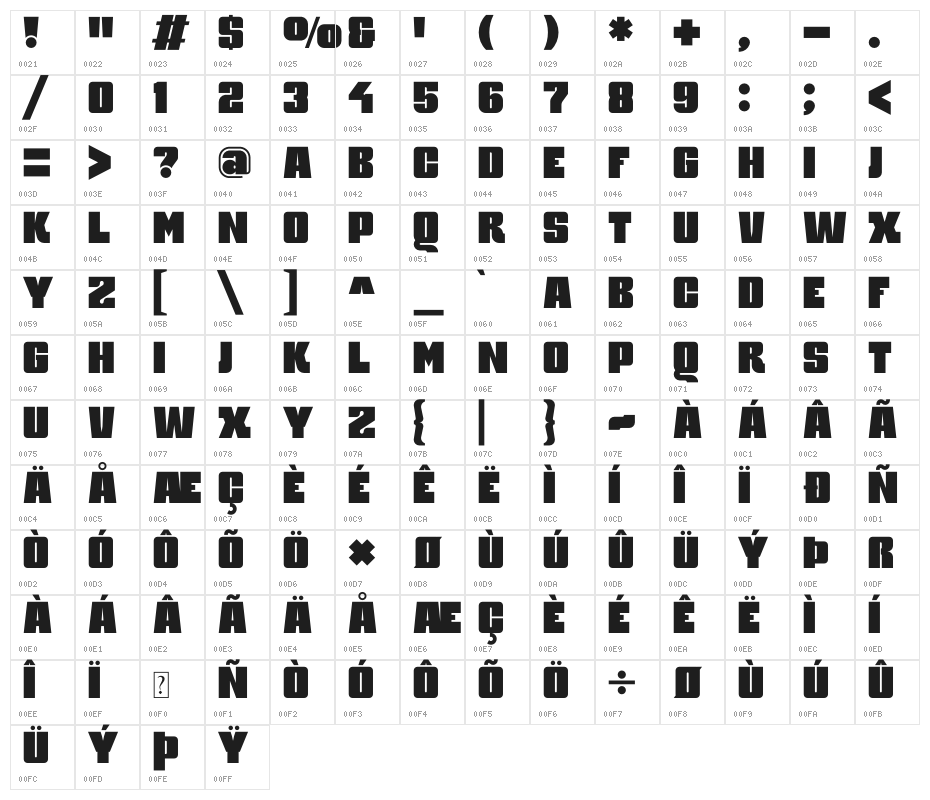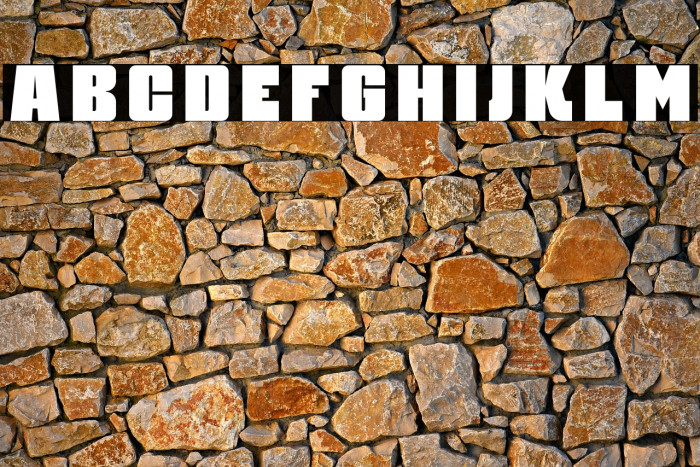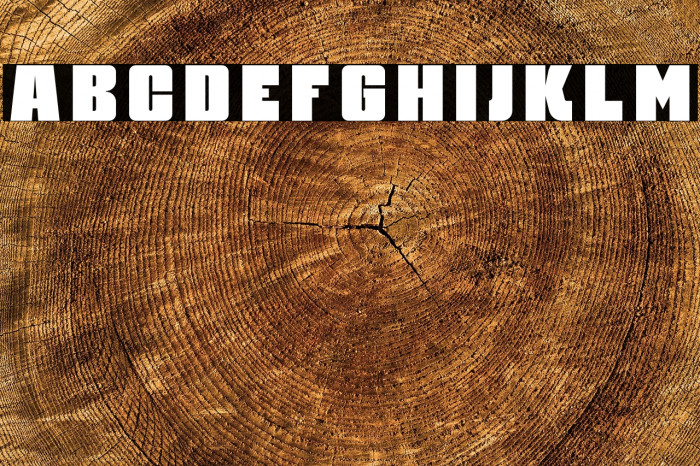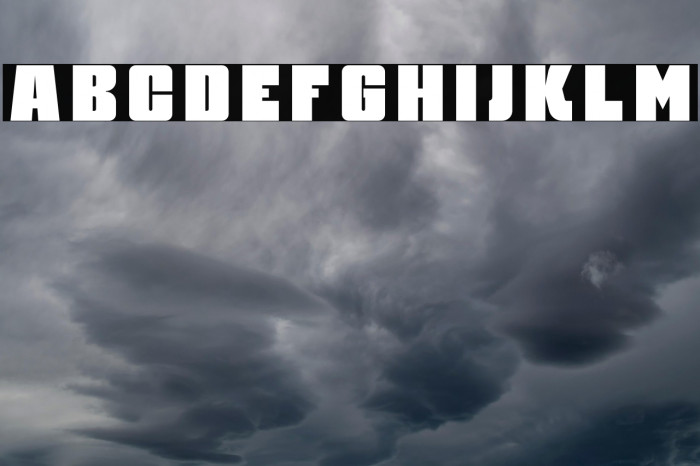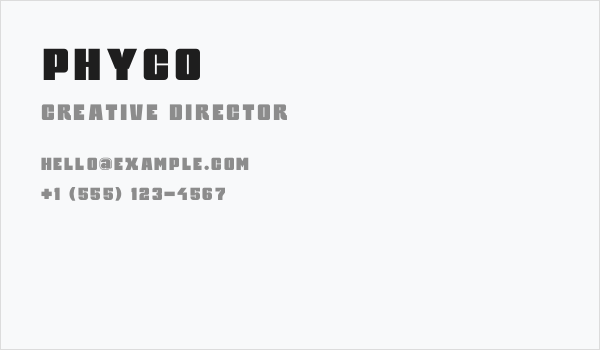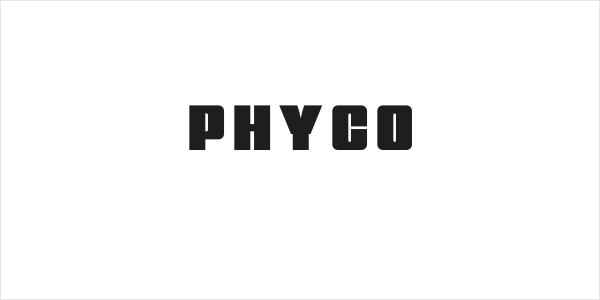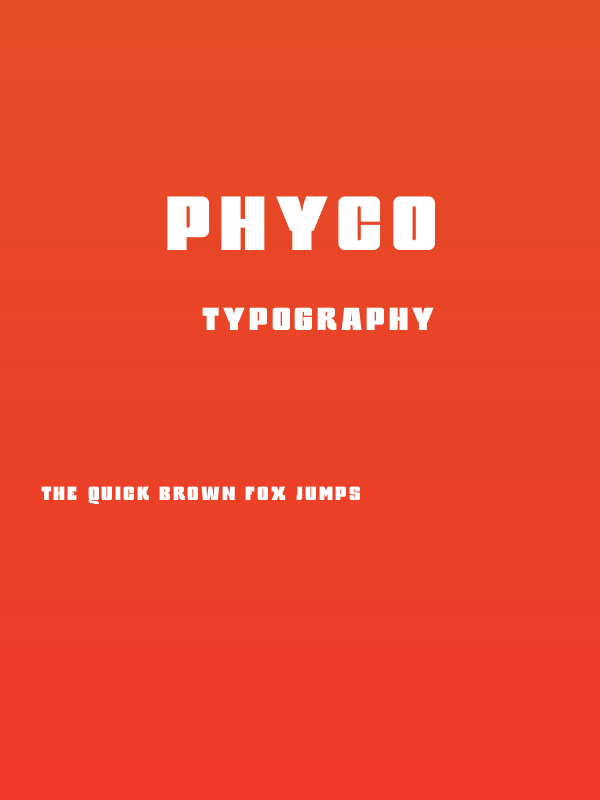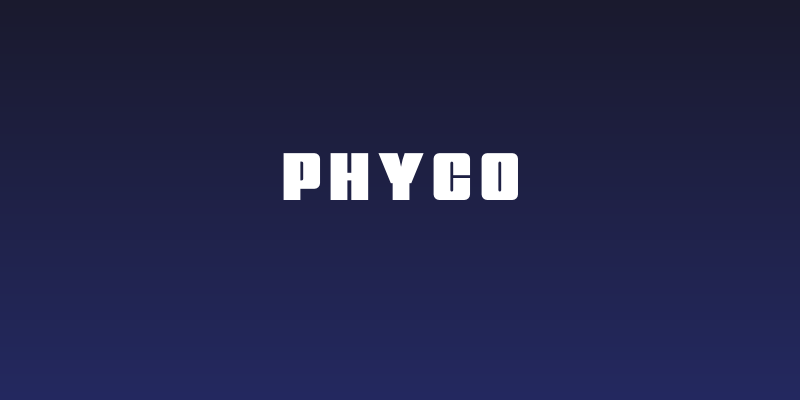
Phyco Font
Phyco Description
This font features bold, blocky characters with a strong presence, making it ideal for impactful designs. The uppercase letters are uniform in height, with a slight angularity that adds a modern touch. The numbers are equally bold, maintaining the same visual weight as the letters. Special characters are designed to match the overall robust style, ensuring consistency across all elements. The font's thick strokes and minimal contrast give it a powerful, authoritative appearance, suitable for attention-grabbing headlines or branding materials.
| Proposed Projects | This font is perfect for projects requiring a strong visual impact, such as posters, logos, and branding materials. Its bold style makes it suitable for headlines and titles that need to stand out. |